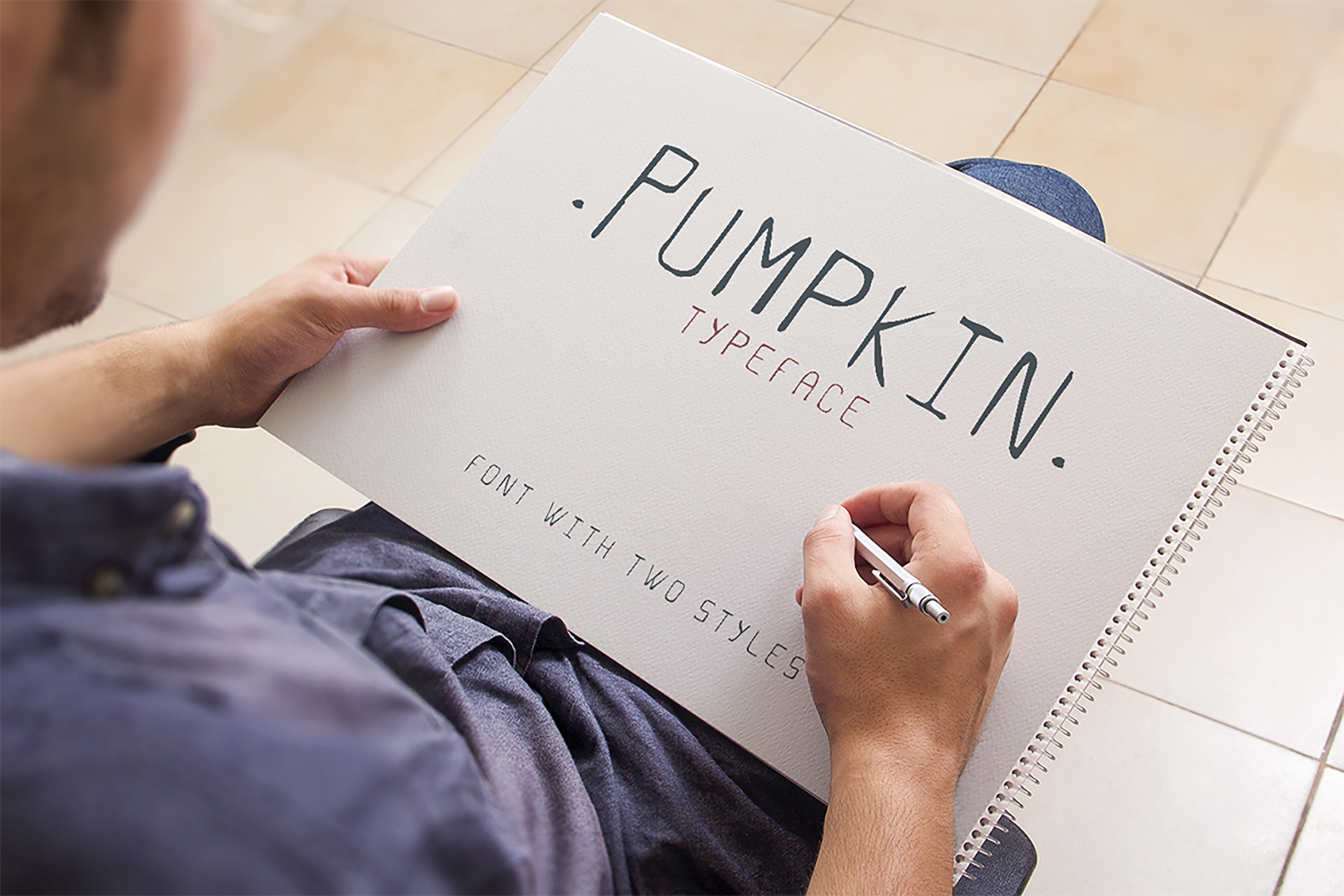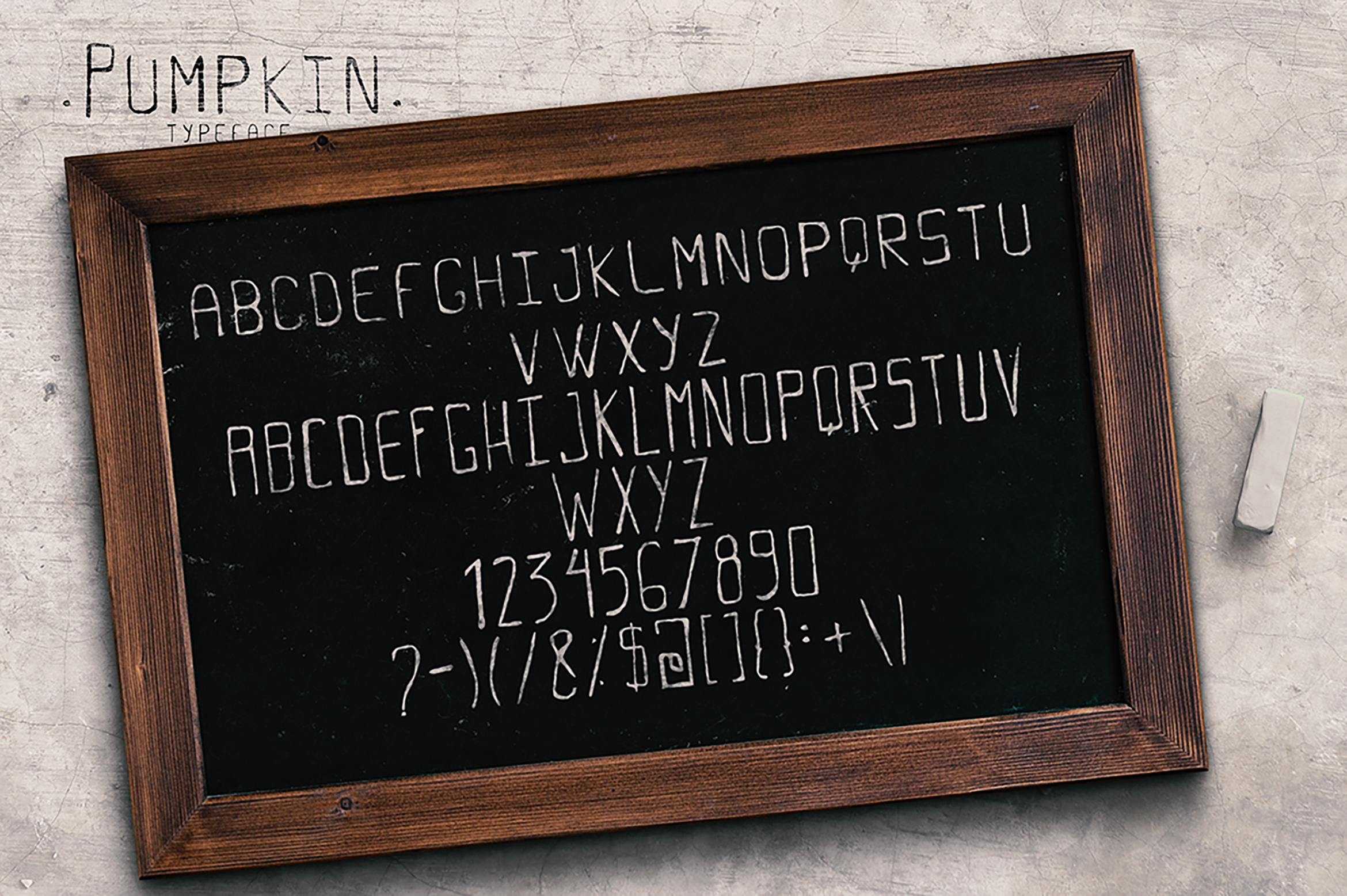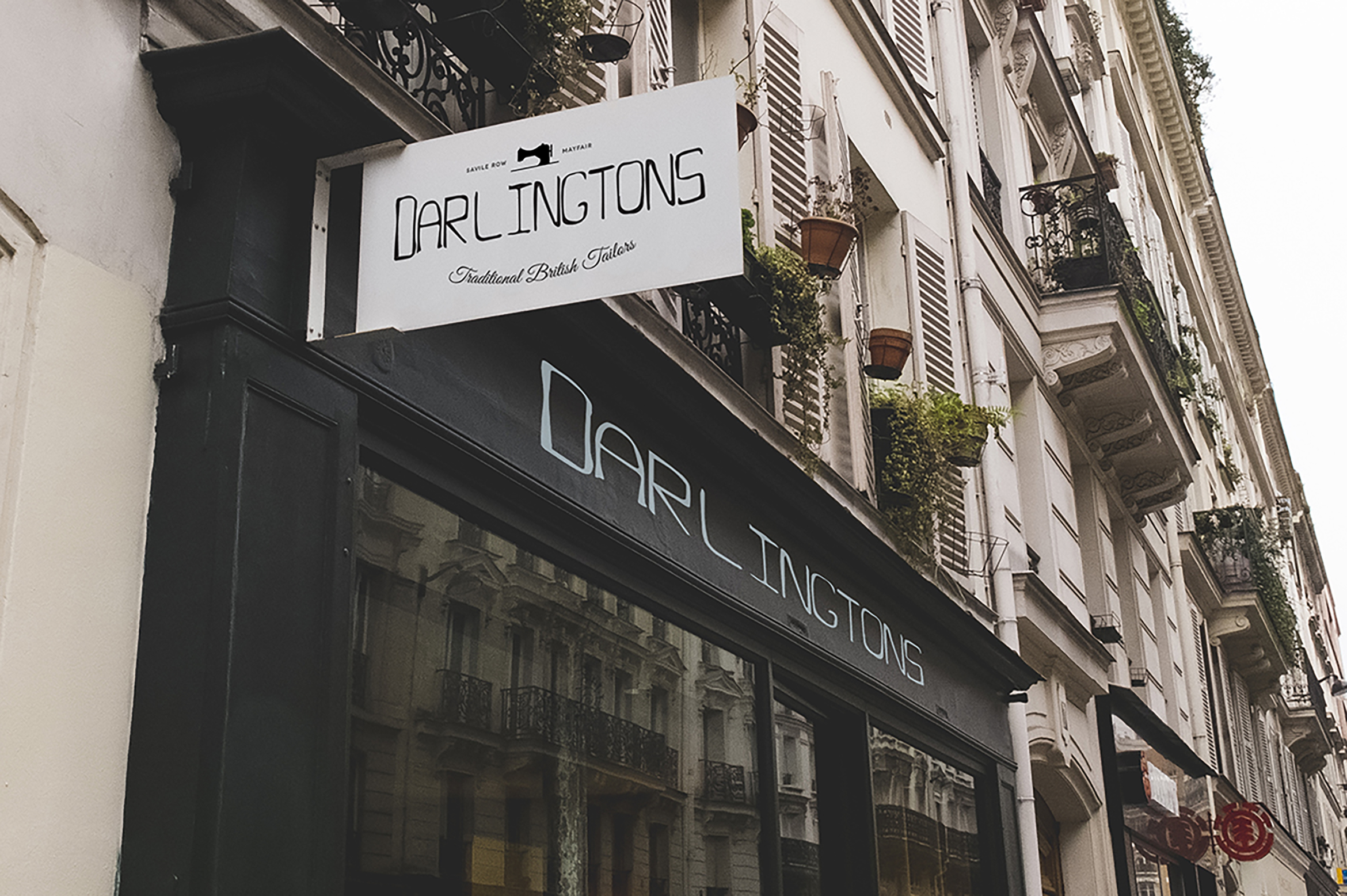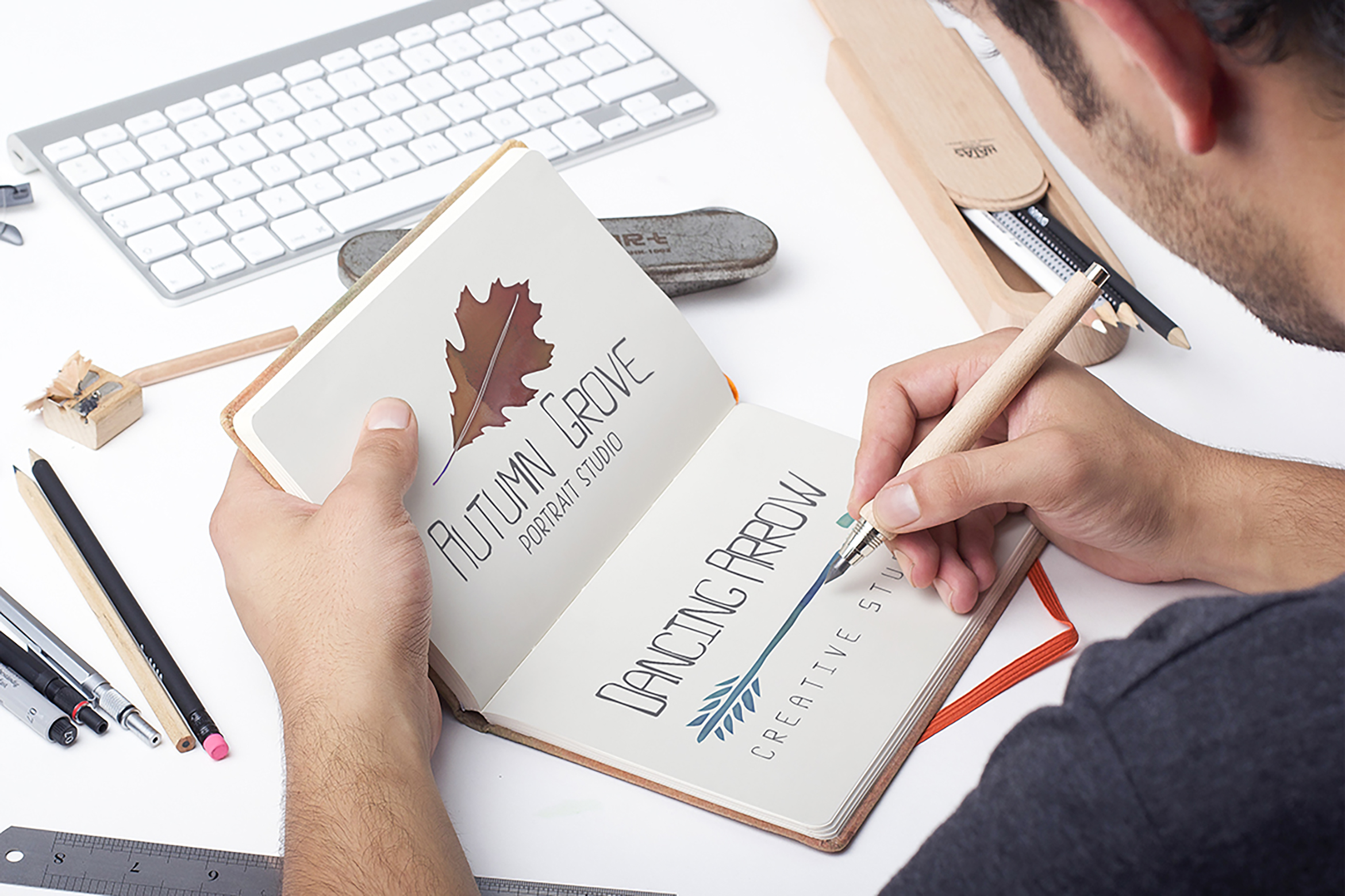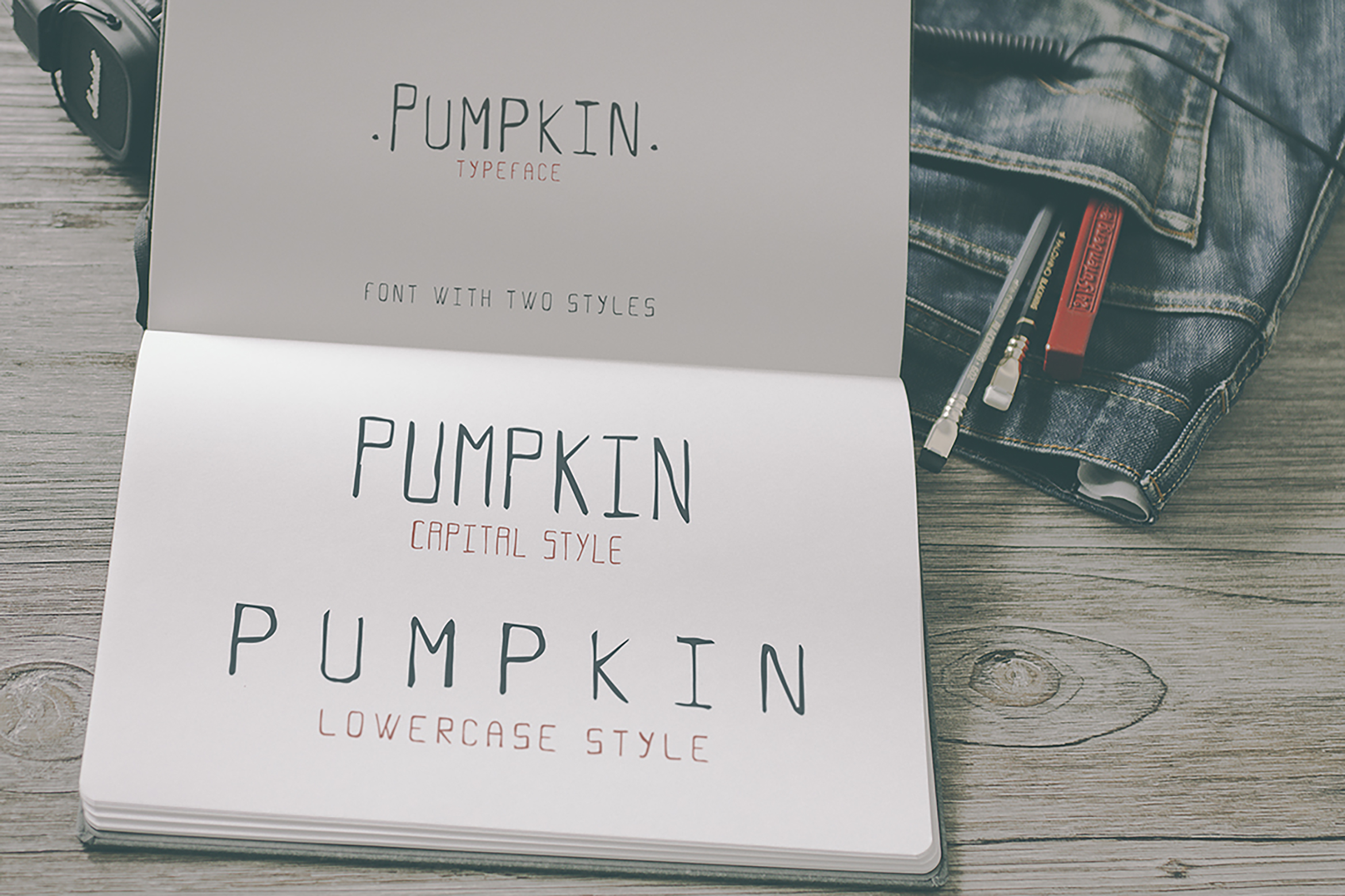
Pumpkin Typeface is an all uppercase font that comes with all letters and all numbers. It comes in two different styles which can be accessed by using either the lower-case or the upper-case version of the font.
All Uppercase. All letters. All numbers. Two Styles.